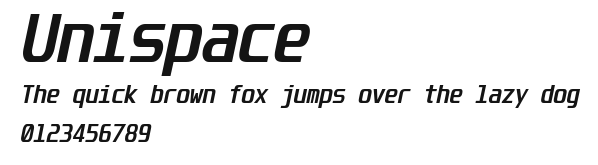
Unispace Preview
• Font Name: Unispace
• Font ID: 5.000;TYPO;Unispace-BoldItalic
• Full Font Name: Unispace-BoldItalic
• Version: Version 5.000
• PostScript Name: Unispace-BoldItalic
• Character Count: 359
• Designer: Ray Larabie
• Manufacturer: Ray Larabie
About Unispace.ttf
Unispace.ttf is a modern, elegant sans-serif font designed for ultimate readability and visual harmony. Perfect for branding, headlines, web design, and print materials.